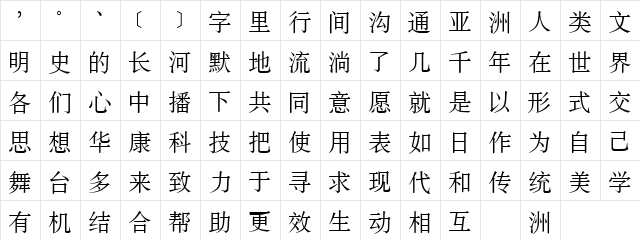
DFSong1BGB Regular Font Preview
DFSong1BGB Regular
Design Context for DFSong1BGB Typeface
DFSong1BGB takes a measured approach to typography — its balanced proportions and neutral character make it a reliable workhorse for both digital and print work.